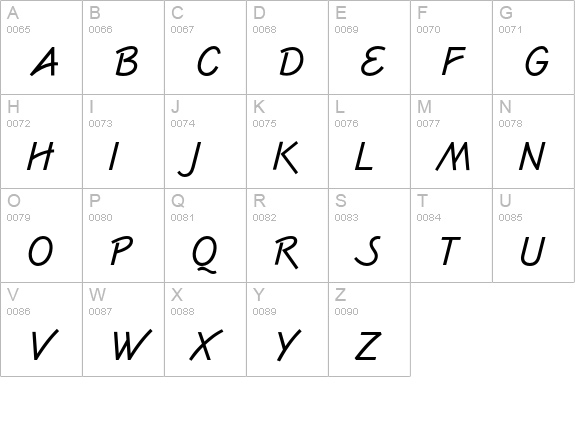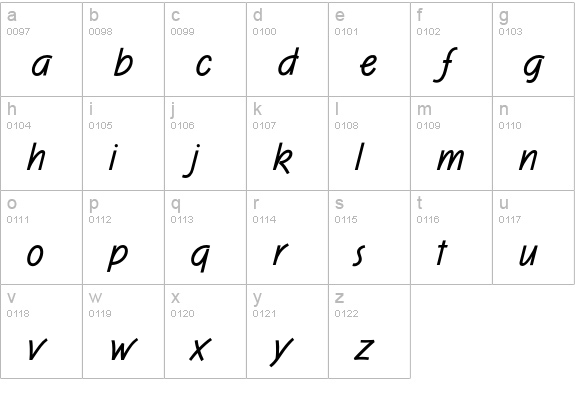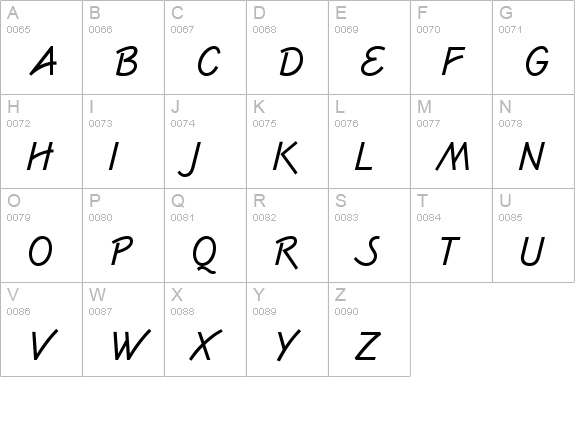
OPTIBlizzard-Casual Font Details
Introducing OPTIBlizzard-Casual font, a playful and stylish typeface that will add a touch of fun to your projects. This fun and friendly font is perfect for creating eye-catching designs for invitations, posters, logos, and more. OPTIBlizzard-Casual features a casual yet modern style, making it versatile for a wide range of design projects. The best part? OPTIBlizzard-Casual font is available for free download at FontsMarket.com. With just a few clicks, you can add this charming font to your collection and start creating stunning designs. Don't miss out on this fantastic opportunity to enhance your design projects with this unique and creative font. Download OPTIBlizzard-Casual font today and let your creativity shine!